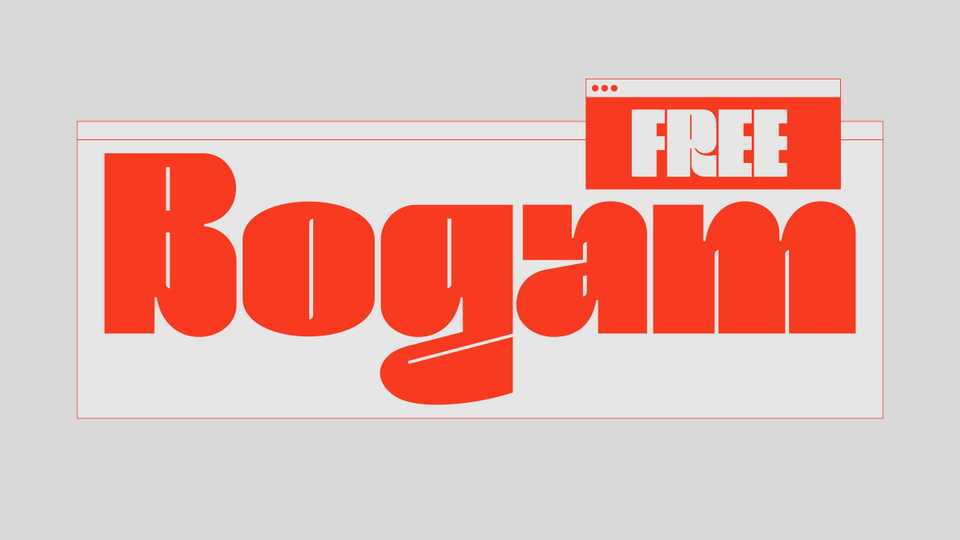
Download Bogam font, a bold sans serif typeface inspired by urban lifestyle, music and fashion. Designed for robust and high-impact use, Bogam font is perfect for impressive headlines, packaging, branding and poster design.
Designer: Bagerich Type Foundry